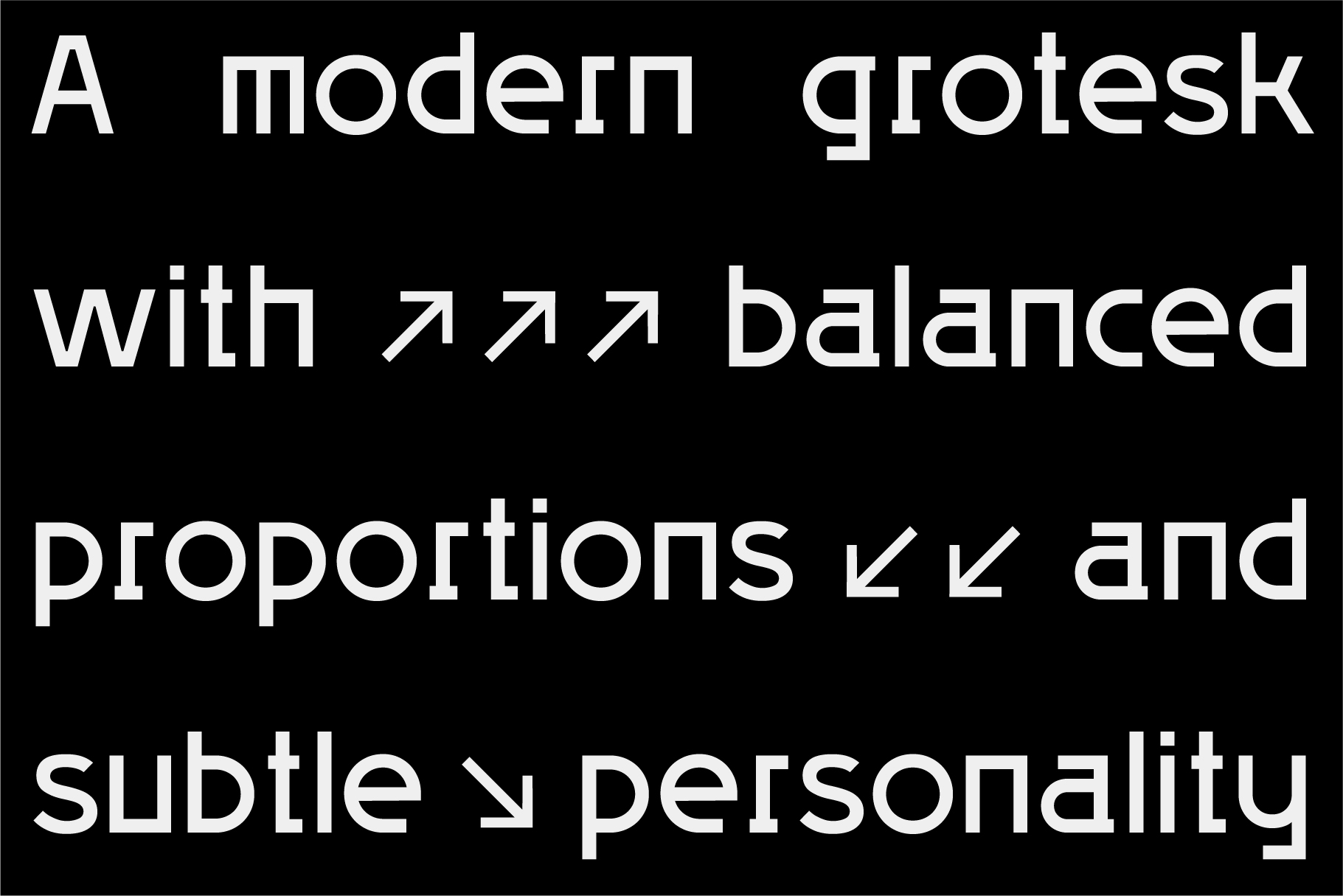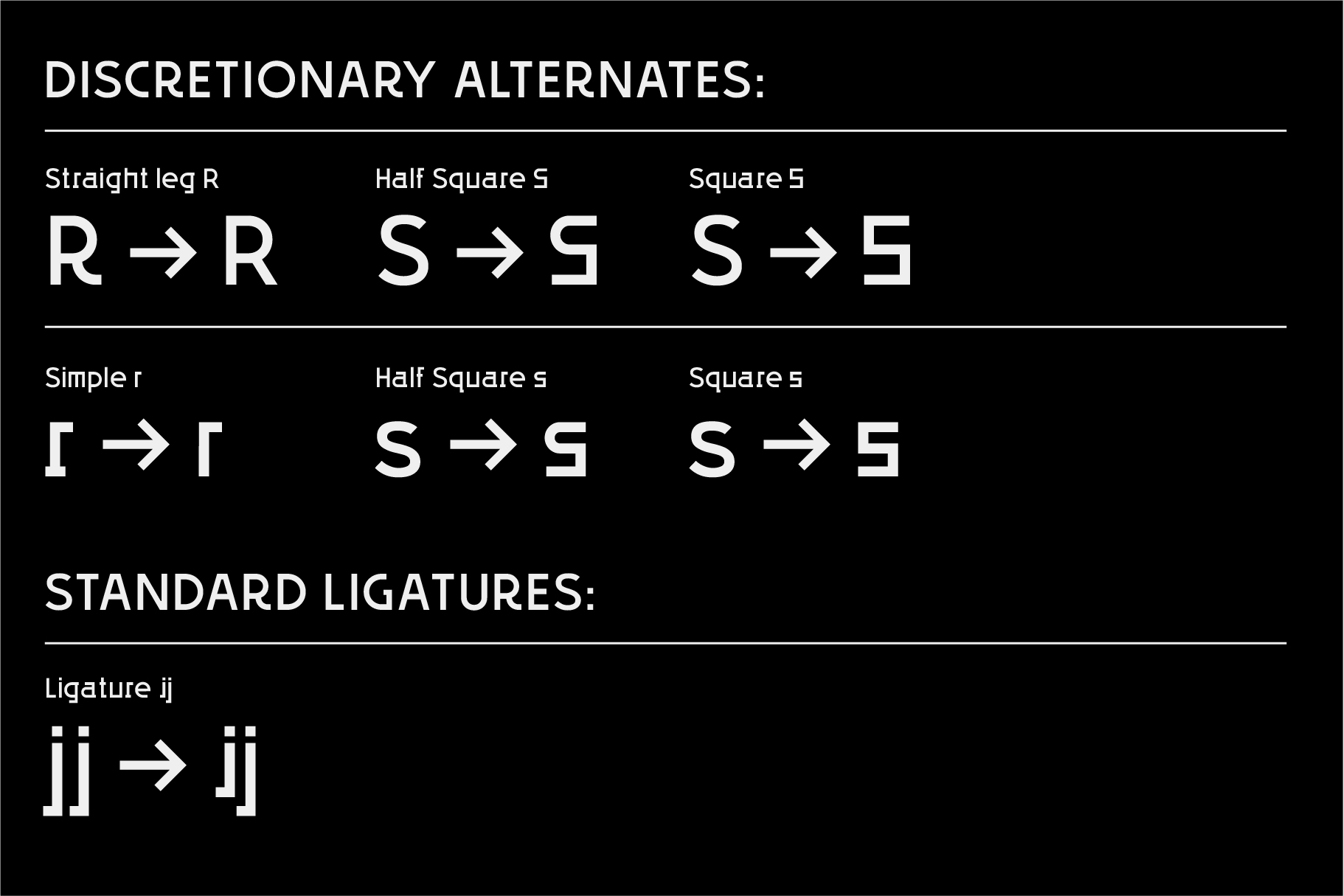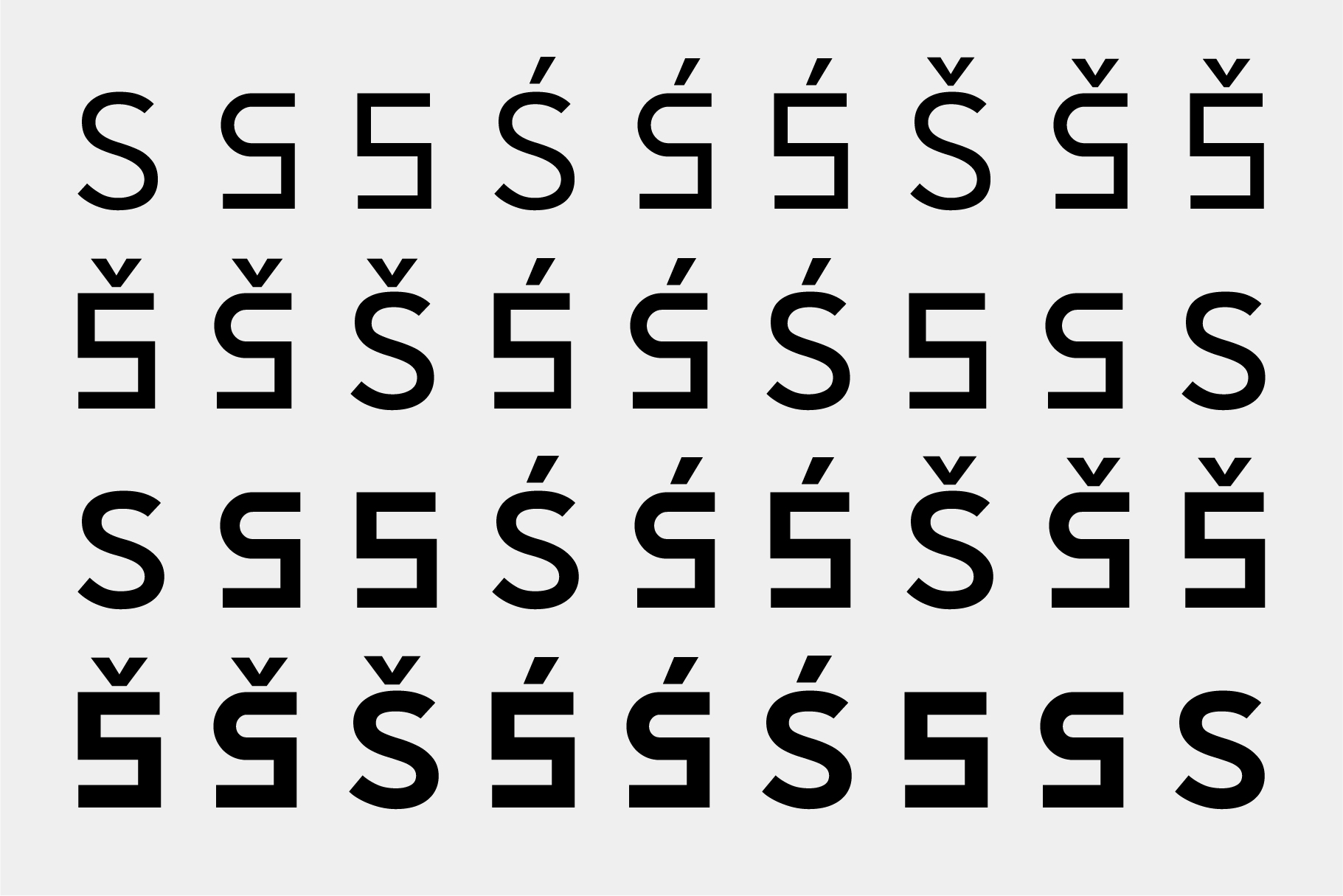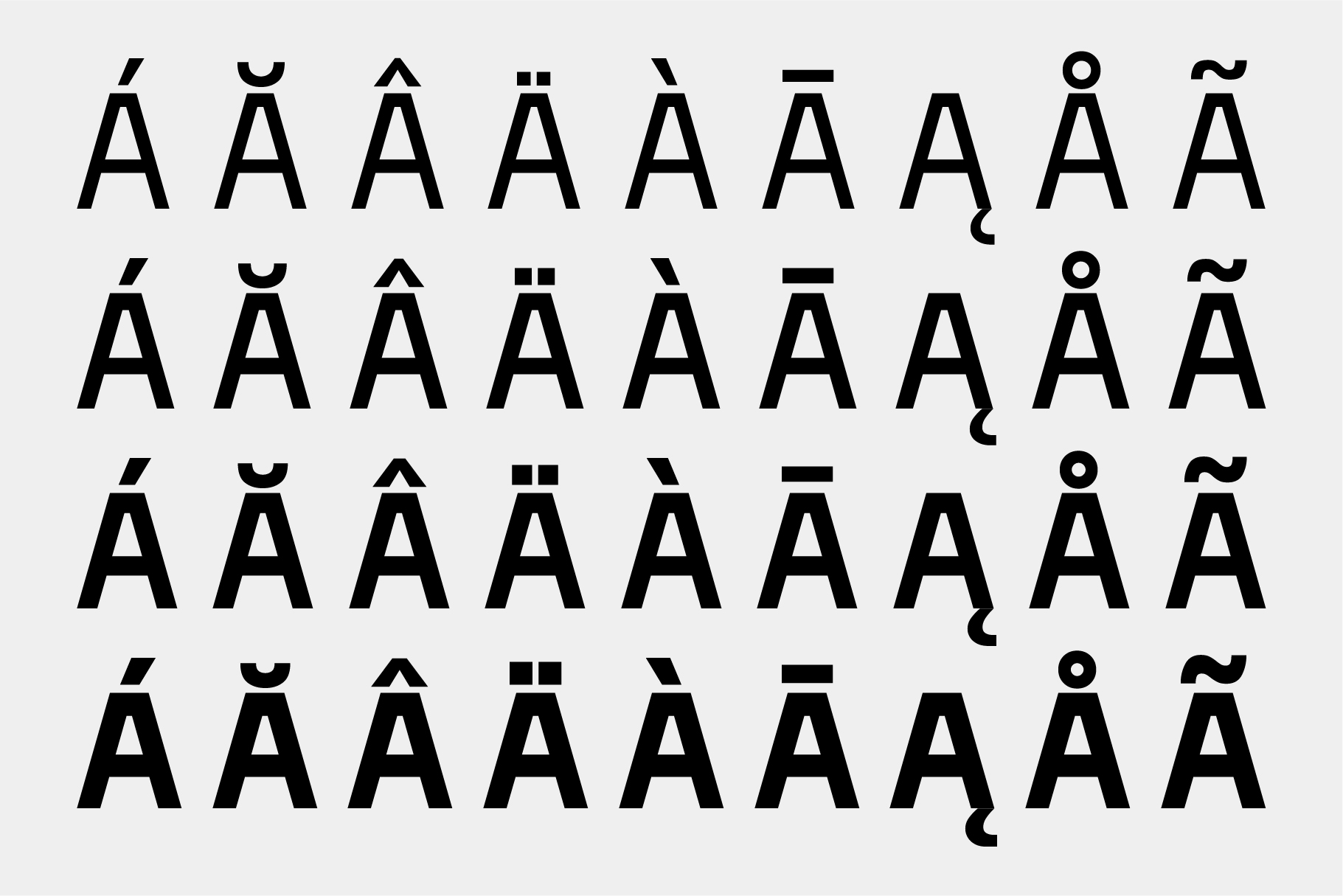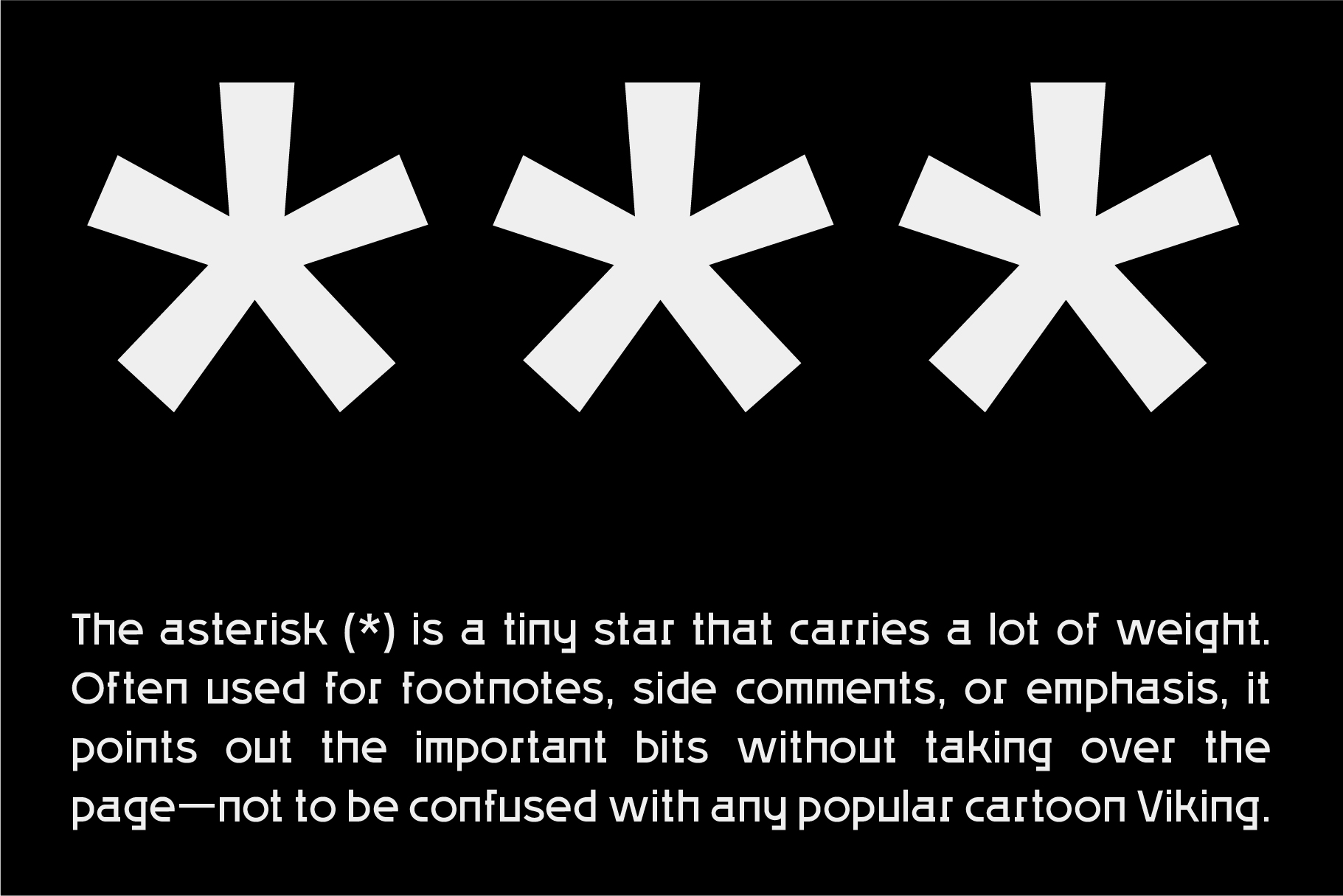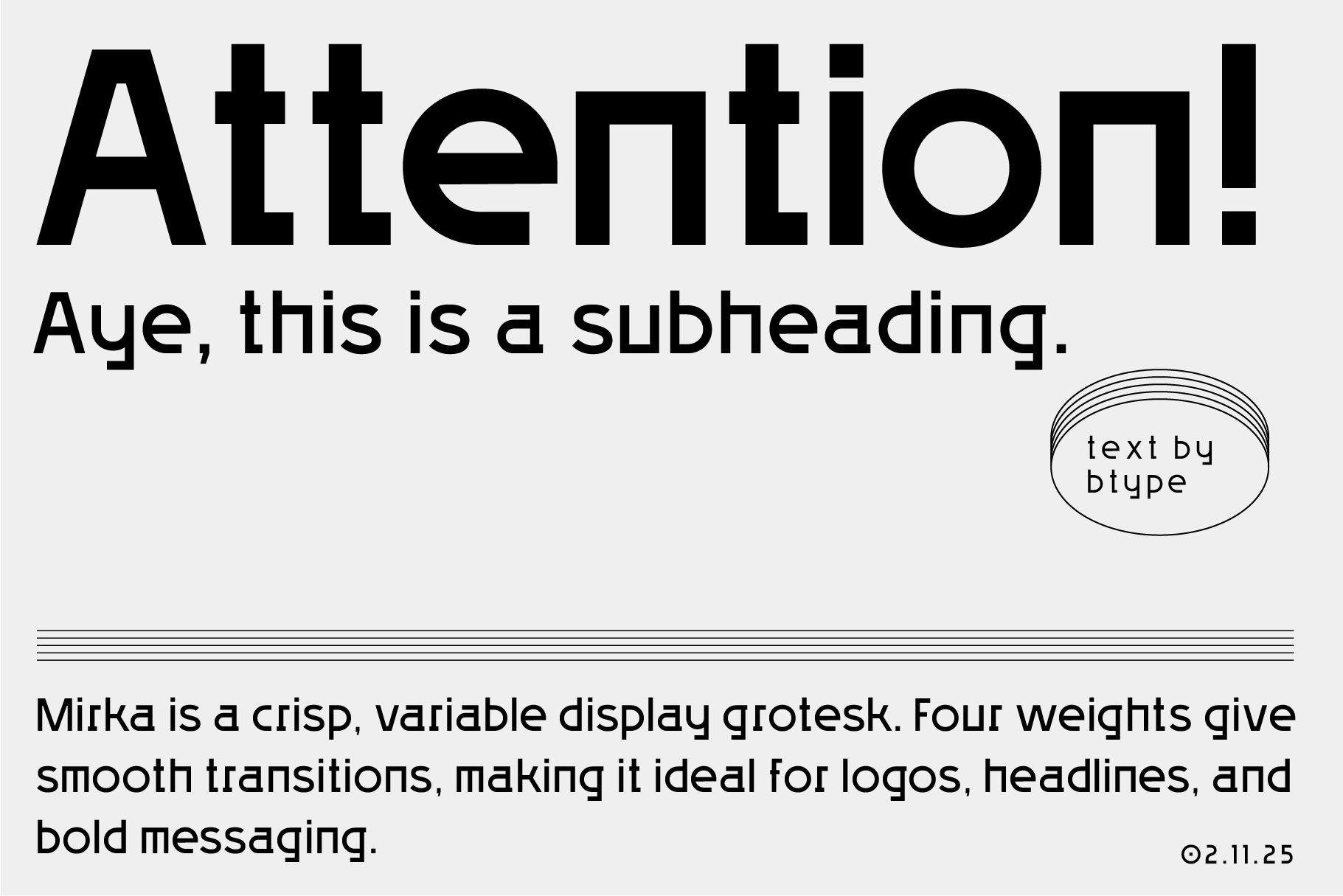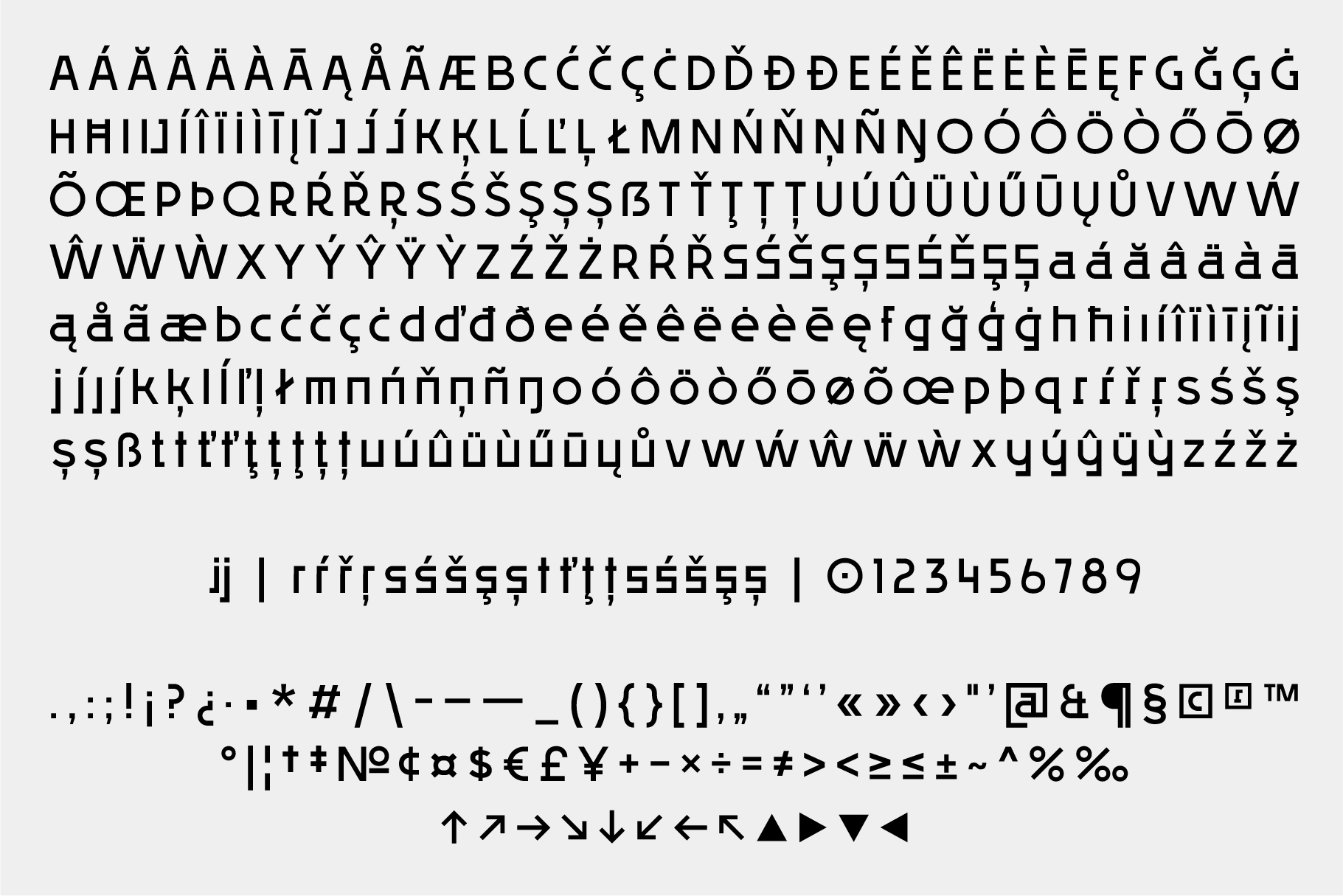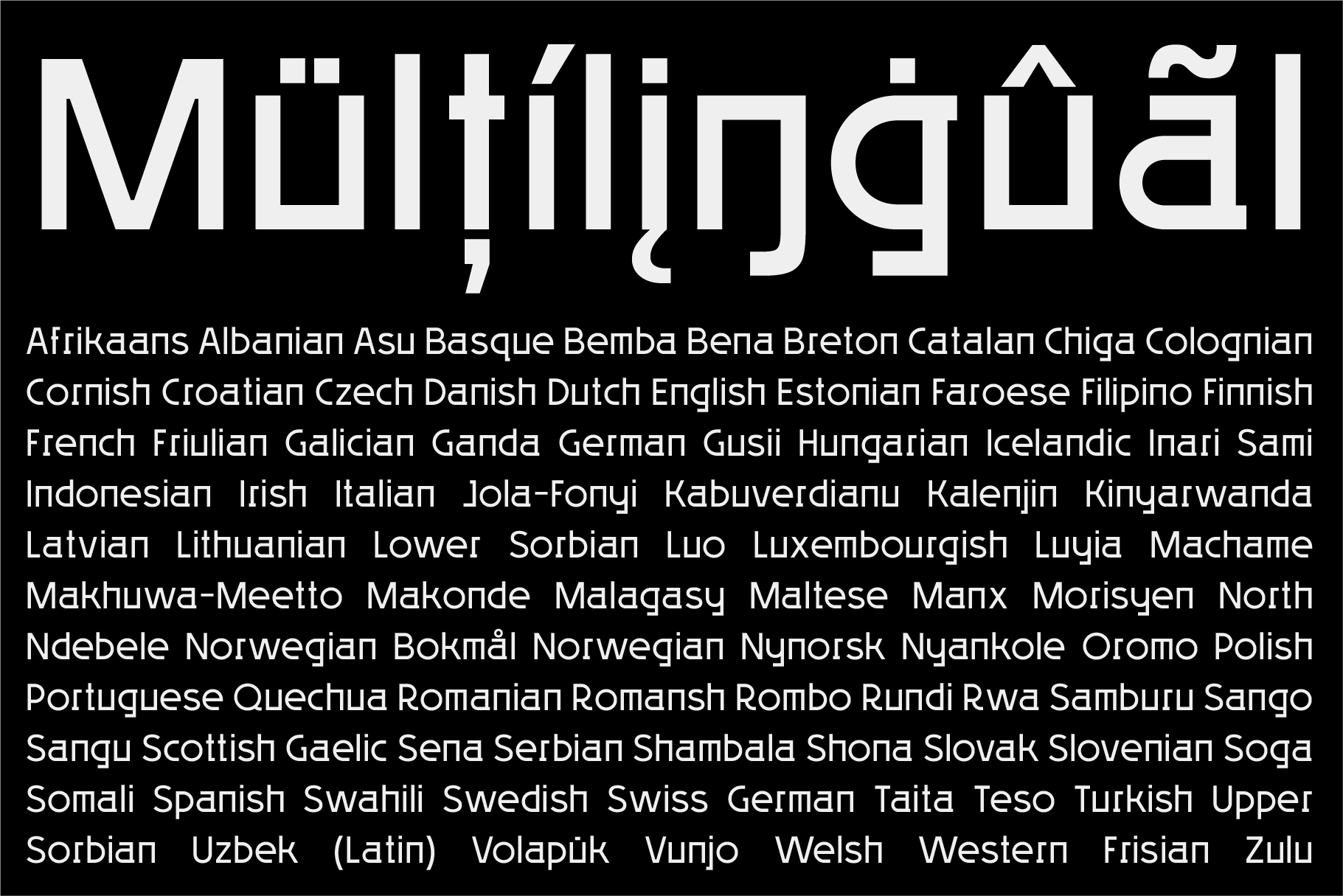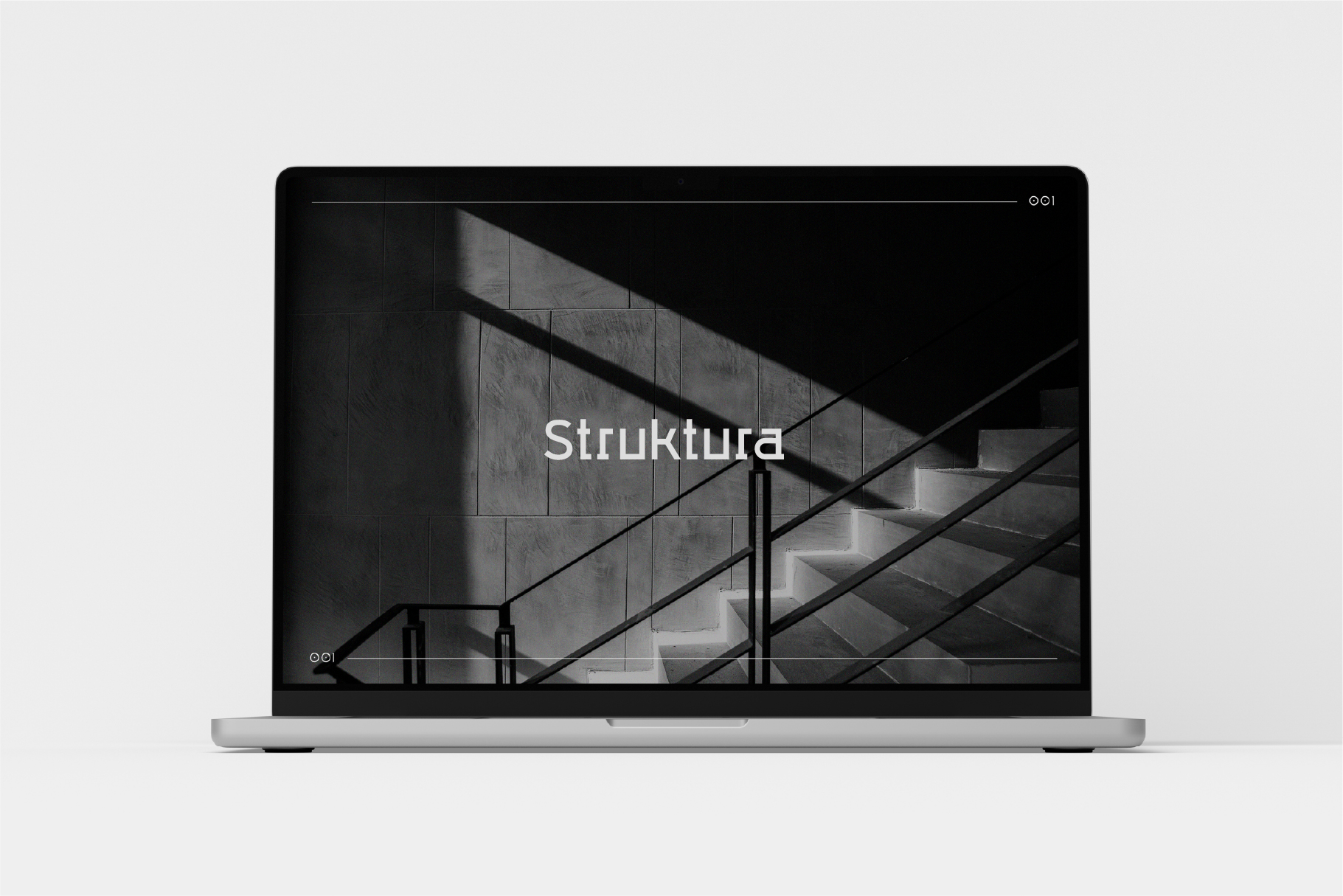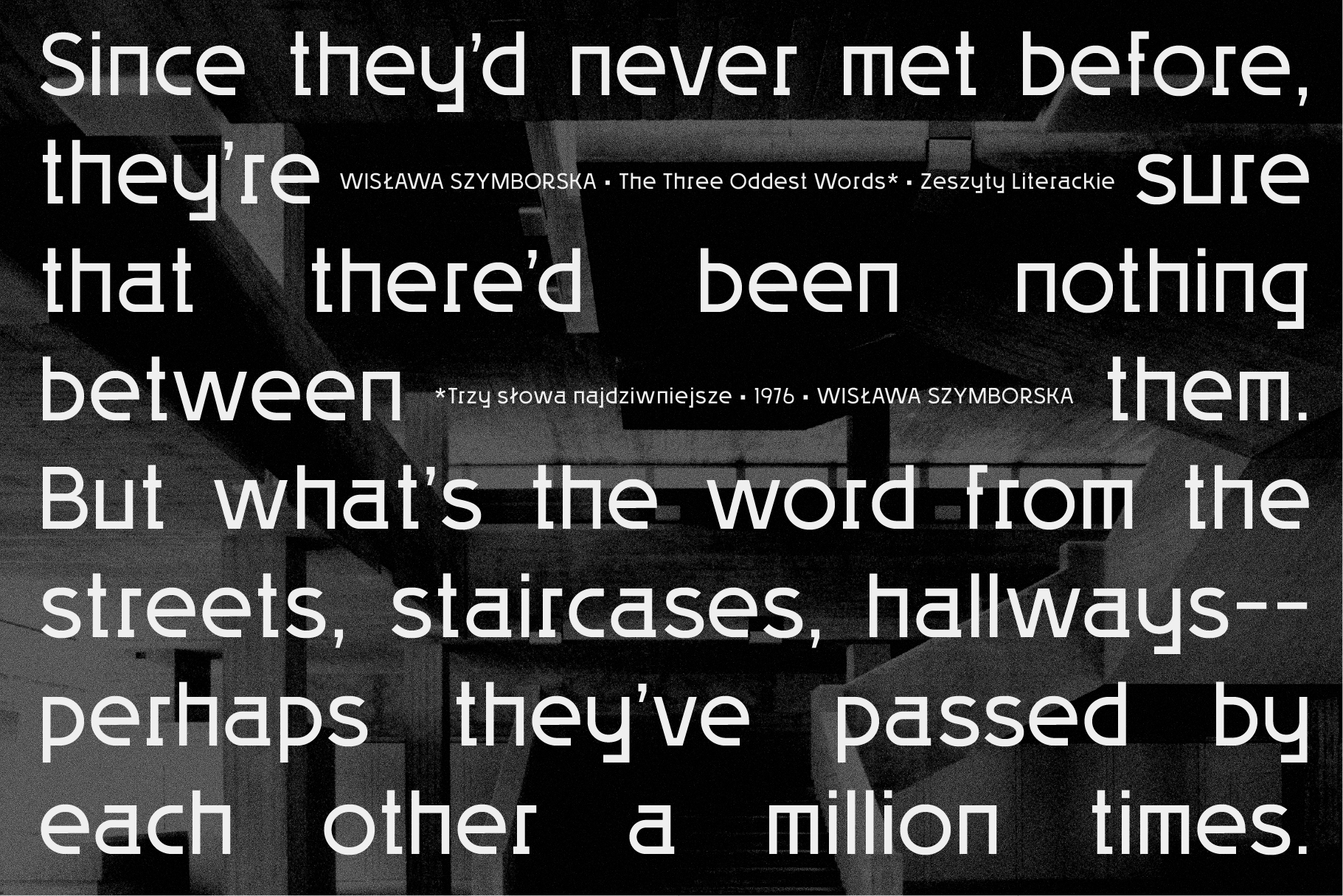
Mirka Variable Family Collection
Mirka
Light Regular Semi-Bold BoldMirka Variable
Aa Aa Aa AaMirka is a contemporary geometric sans serif. Available as both a static family and a variable font.
Access All Alternates
Ordinals
Standard Ligatures
Stylistic Alternates